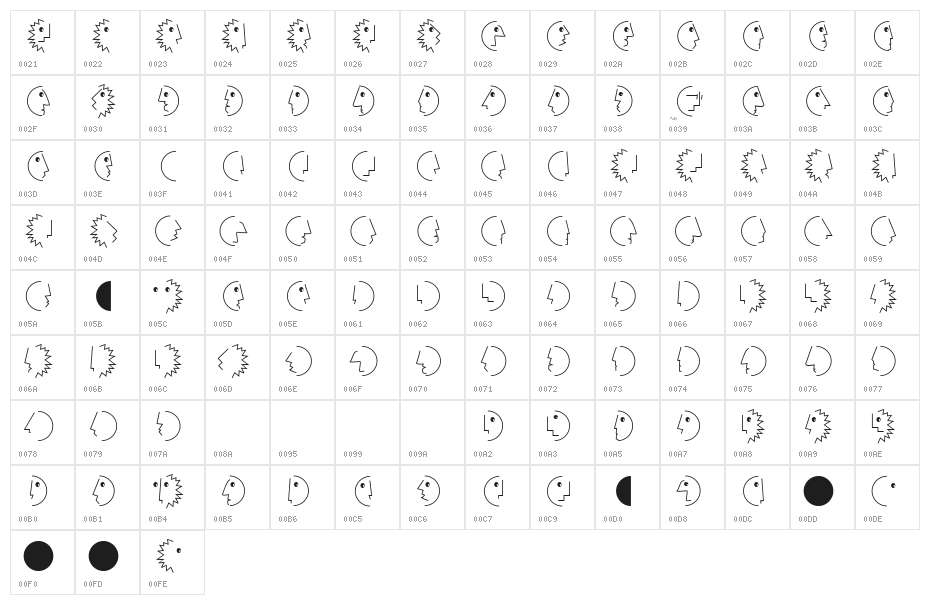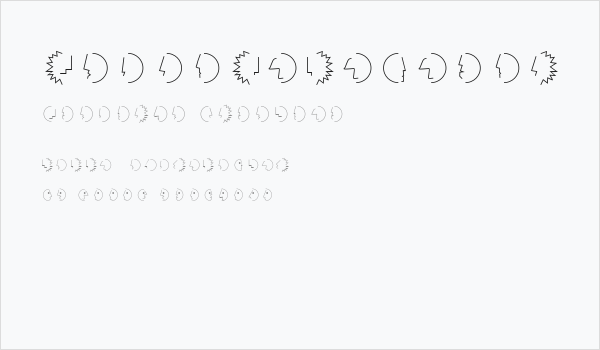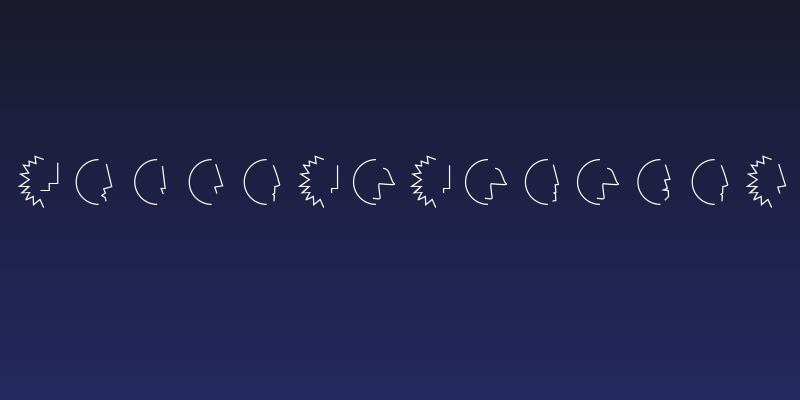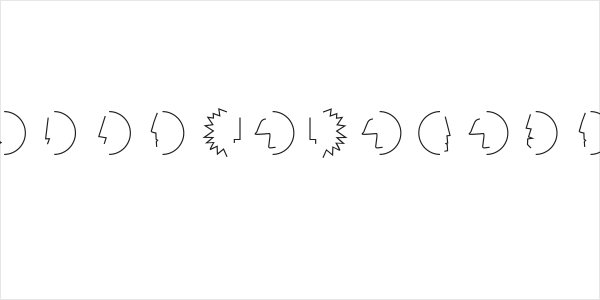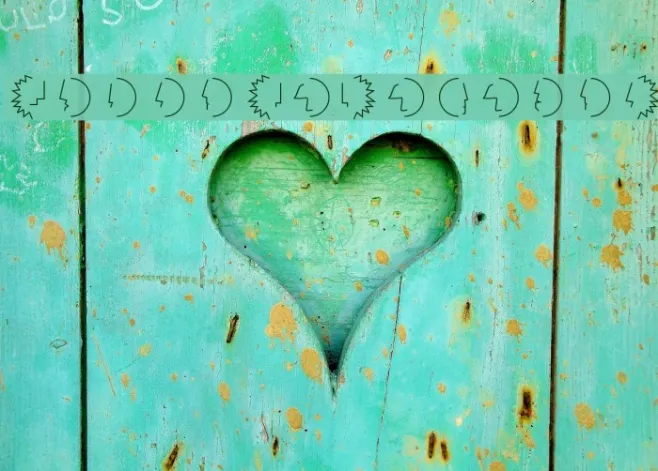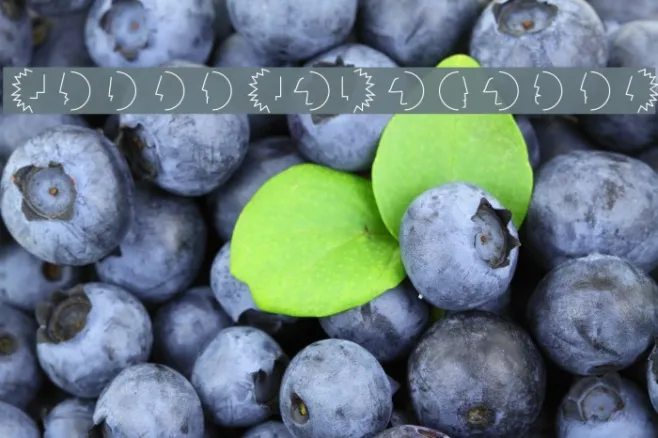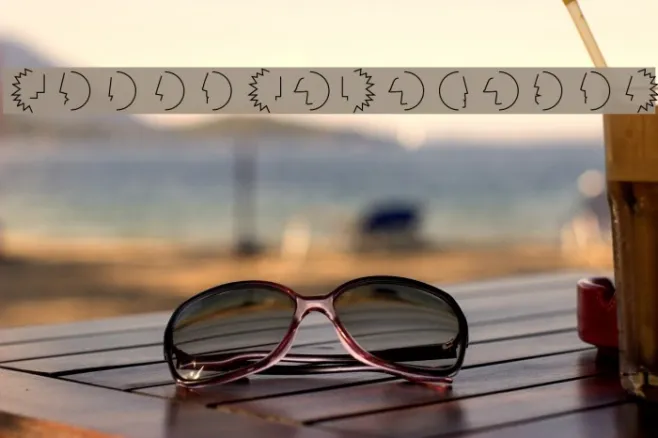
HeadsLogoTorsi Font
HeadsLogoTorsi Description
This is not a traditional font but rather a series of abstract symbols resembling human profiles. Each character is a unique representation of a face, using simple geometric shapes and lines to convey different expressions or styles. The designs are minimalist, with a focus on the outline of a head and facial features like eyes and mouths. The style is playful and artistic, making it suitable for creative projects that require a distinctive visual element. The symbols vary in complexity, with some featuring jagged lines to suggest hair or dynamic movement.
| Overall Style | Modern, Artistic |
| Use Case | Logos, Artistic projects, Branding |
| Proposed Projects | Ideal for creative branding, artistic projects, or unique logo designs that require a human element. |